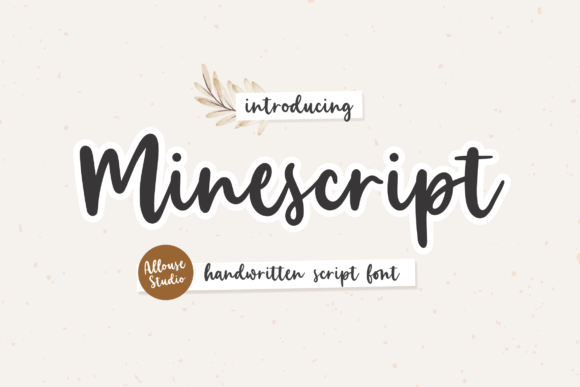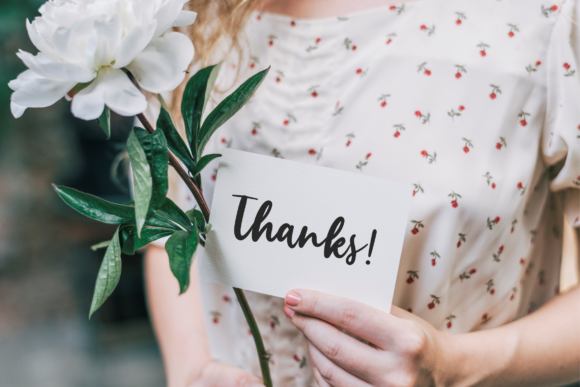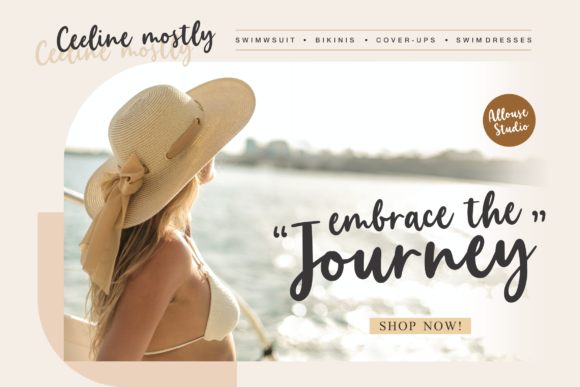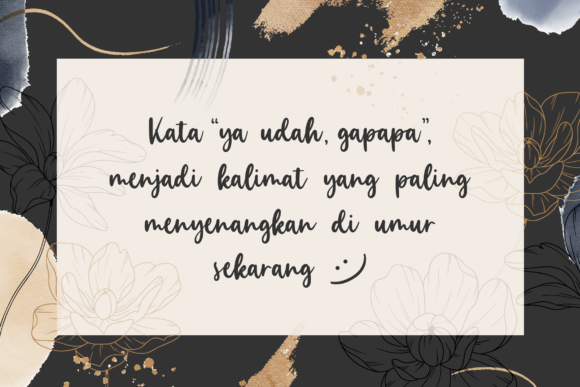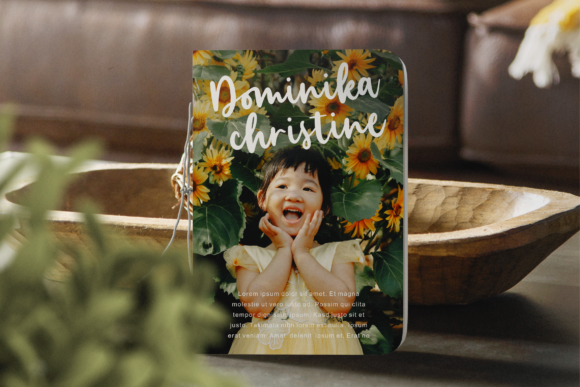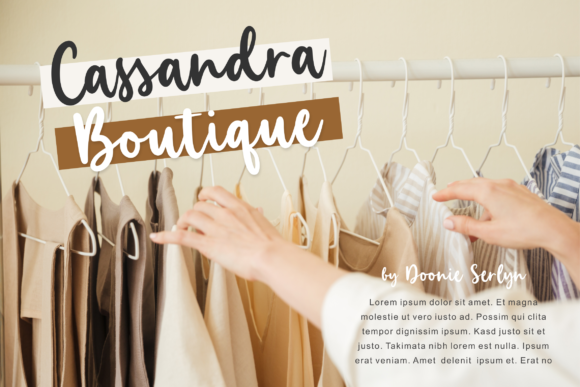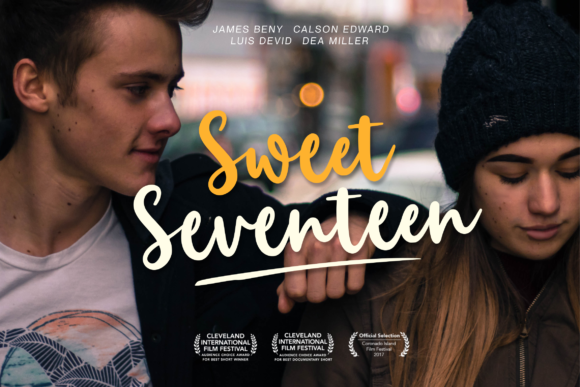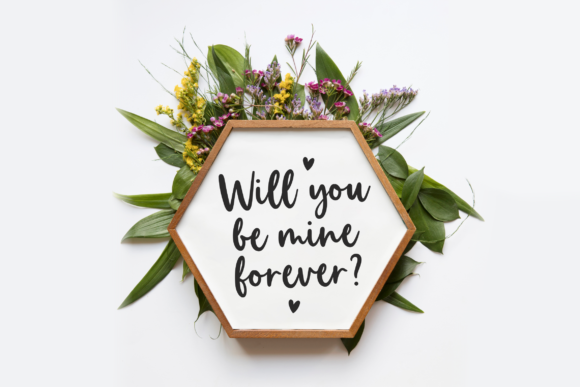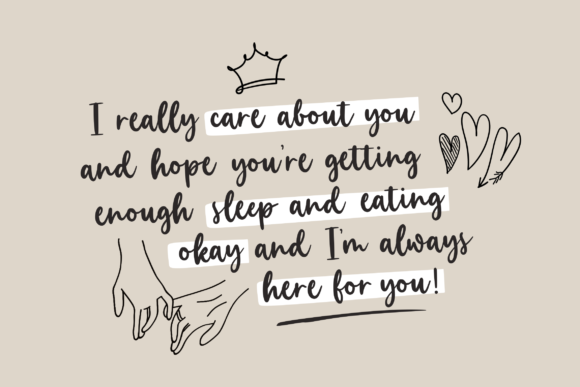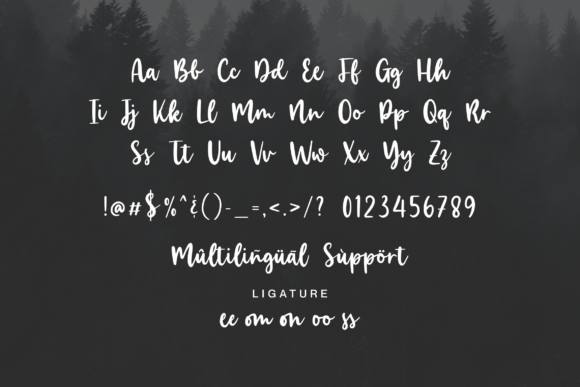
Minescript Font
About Minescript Font
Minescript is a vintage styled and delicate script font.
It is perfect for product packaging, branding project, magazine cover, social media, wedding, or just used to express words above the background.